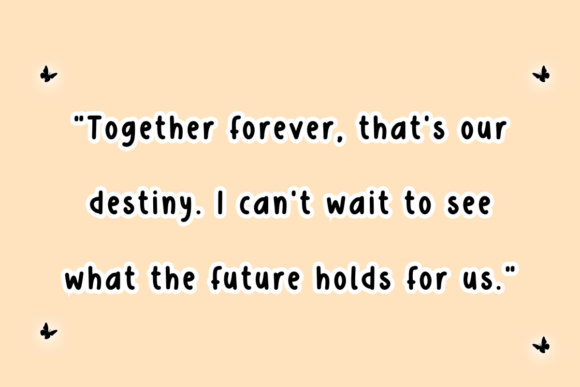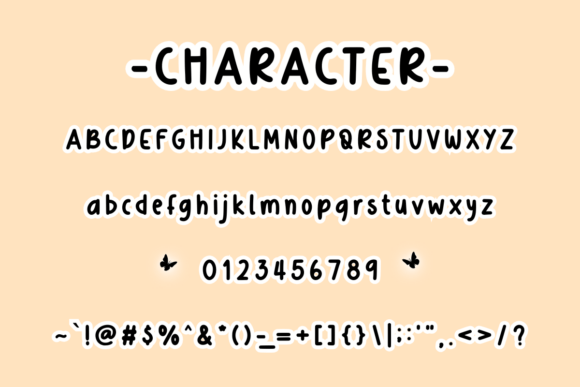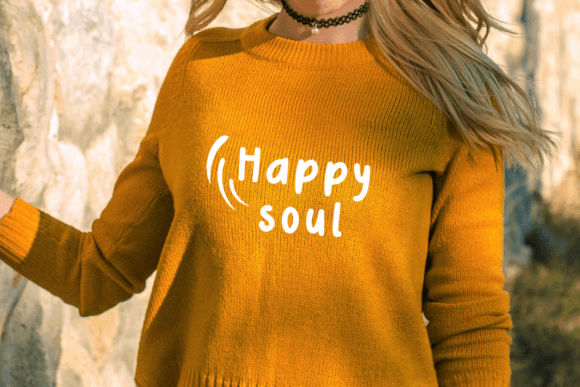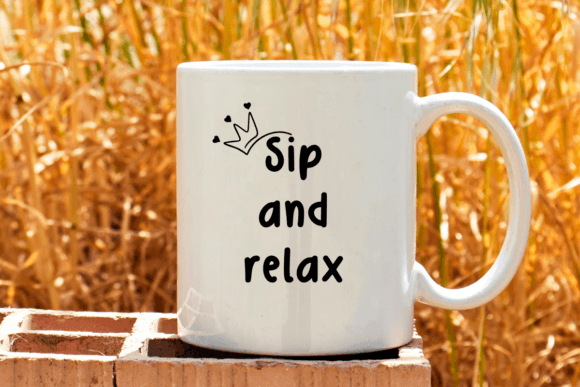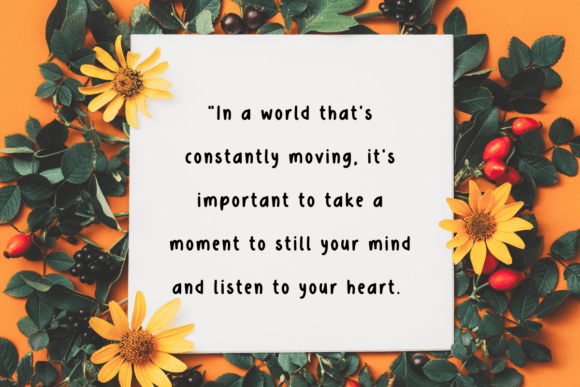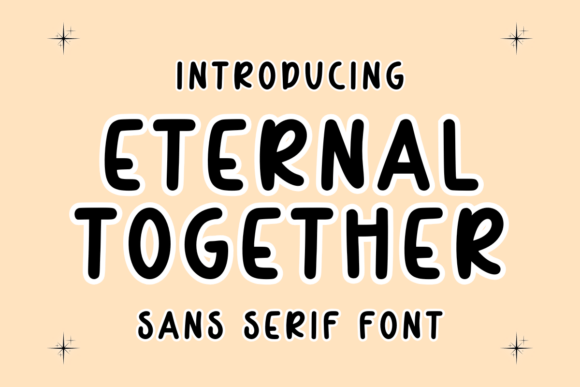
Eternal Together Font: Elevate Your Designs with a Clean and Friendly Sans Serif
In the world of design, typography plays a crucial role in conveying messages, expressing creativity, and capturing the audience’s attention. Among the numerous fonts available, Eternal Together stands out as a clean and modern sans serif font that exudes a friendly feel. Its simplicity, smooth lines, and effortless readability make it an ideal choice for designers and crafters looking to add a stylish and welcoming touch to their projects.
What Makes Eternal Together Font Special?
Eternal Together is a versatile font designed to cater to various design needs. Its clean and modern sans serif style ensures that your text remains clear and legible, even at smaller font sizes. The font’s friendly feel makes it perfect for designs that require a personal touch, such as logos, posters, social media graphics, and more.
Key Features of Eternal Together Font
- Clean and Modern Design: Eternal Together boasts a sleek and contemporary design that will instantly elevate your projects.
- Smooth and Simple Letters: The font’s smooth lines and simple letterforms ensure effortless readability, making it perfect for body text and headings.
- Friendly Feel: The font’s friendly feel adds a personal touch to your designs, making them more approachable and engaging.
- Versatile: Eternal Together is suitable for a wide range of design applications, from logos and posters to social media graphics and more.
Use Cases for Eternal Together Font
Eternal Together’s versatility makes it an excellent choice for various design projects. Here are some use cases where this font truly shines:
Logo Design
Create a lasting impression with Eternal Together as your logo font. Its clean and modern design ensures that your brand’s identity is represented in a stylish and professional manner.
Poster Design
Make your posters stand out with Eternal Together’s bold and friendly feel. The font’s simplicity and readability ensure that your message is conveyed effectively, even from a distance.
Social Media Design
Eternal Together is perfect for social media graphics, including Facebook posts, Instagram stories, and Twitter headers. Its clean design and friendly feel make it an excellent choice for engaging your audience.
Tips for Using Eternal Together Font
To get the most out of Eternal Together, here are some valuable tips:
Pair with Other Fonts
Experiment with pairing Eternal Together with other fonts to create a unique and visually appealing design. Its clean design makes it an excellent choice for font combinations.
Adjust Font Sizes
Play with different font sizes to create visual hierarchy and emphasize important information. Eternal Together’s smooth lines ensure that your text remains legible even at smaller font sizes.
Use in Branding
Use Eternal Together as a consistent font throughout your branding materials to create a cohesive and recognizable identity.
Eternal Together font is a valuable addition to any designer’s toolkit. Its clean and modern sans serif design, friendly feel, and versatility make it an excellent choice for a wide range of design projects. Whether you’re creating logos, posters, social media graphics, or more, Eternal Together is sure to elevate your designs and leave a lasting impression.